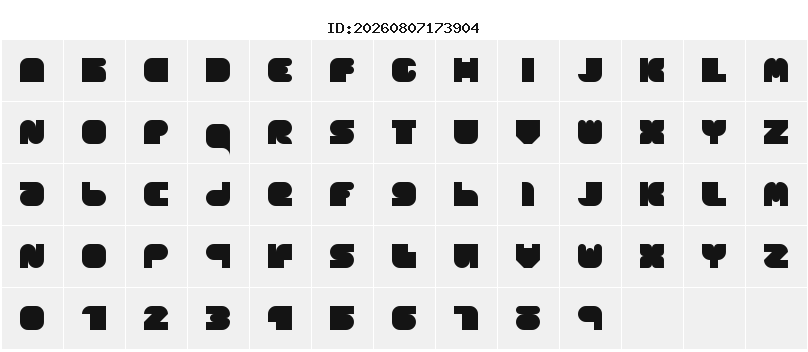
• Font Name: OPN DunPeel Lust
About OPN DunPeel Lust.ttf
OPN DunPeel Lust.ttf is a modern, elegant sans-serif font designed for ultimate readability and visual harmony. Perfect for branding, headlines, web design, and print materials.